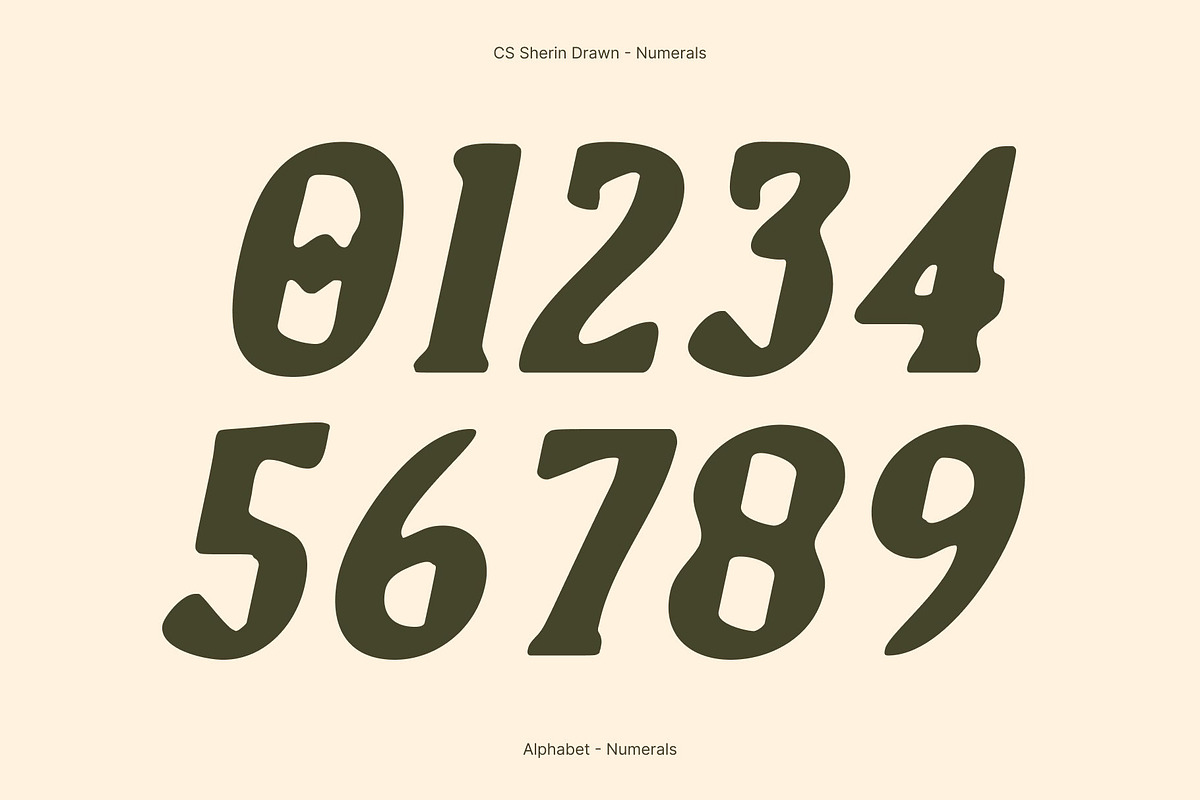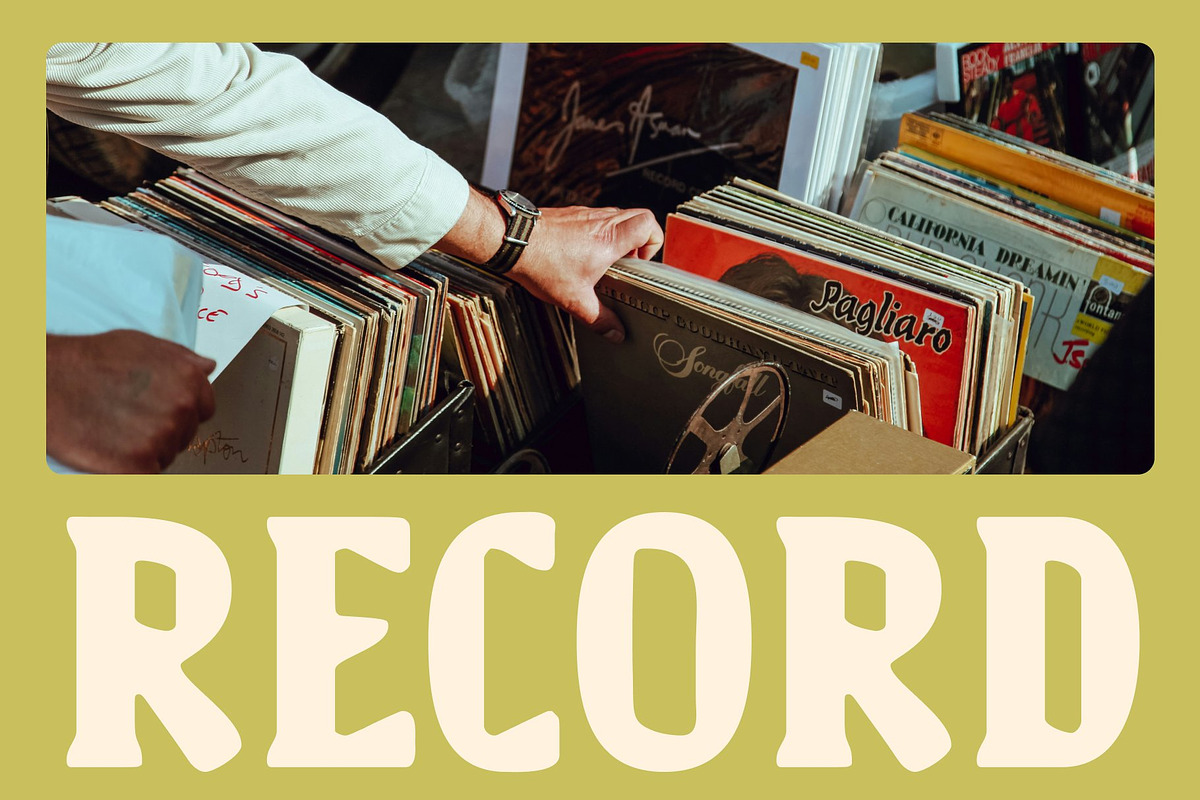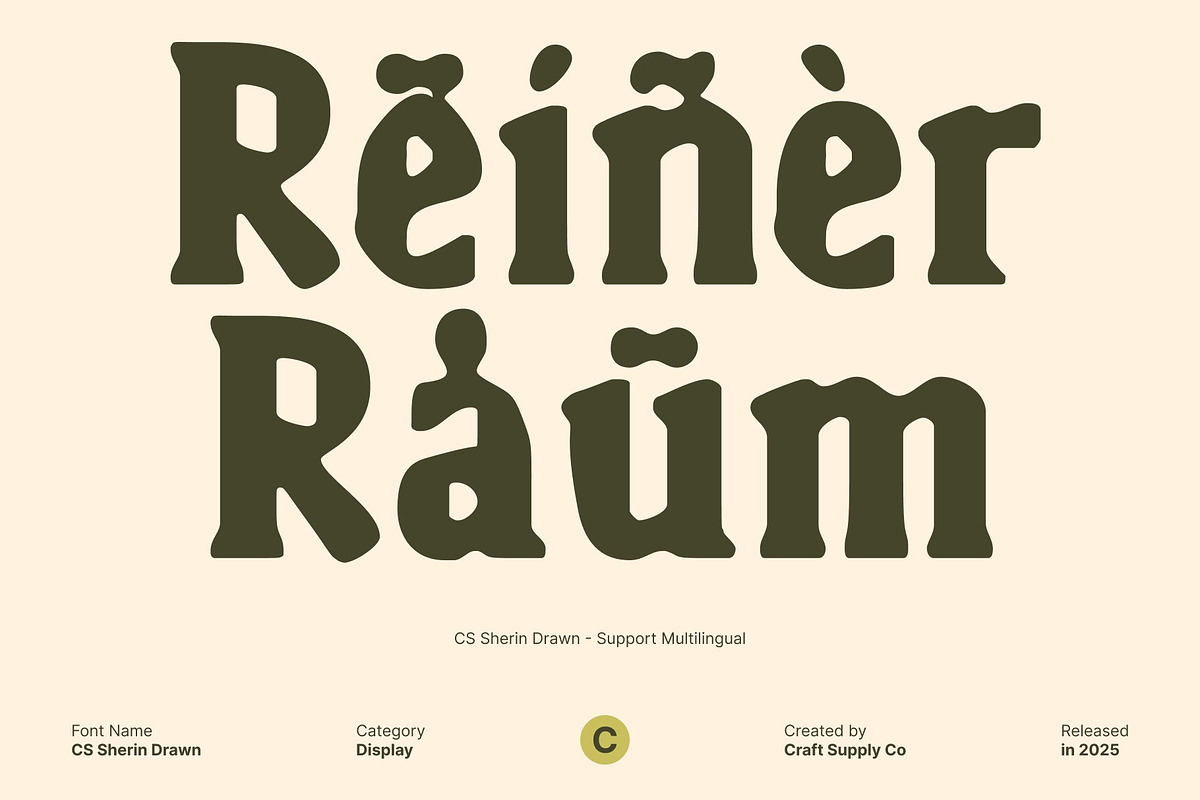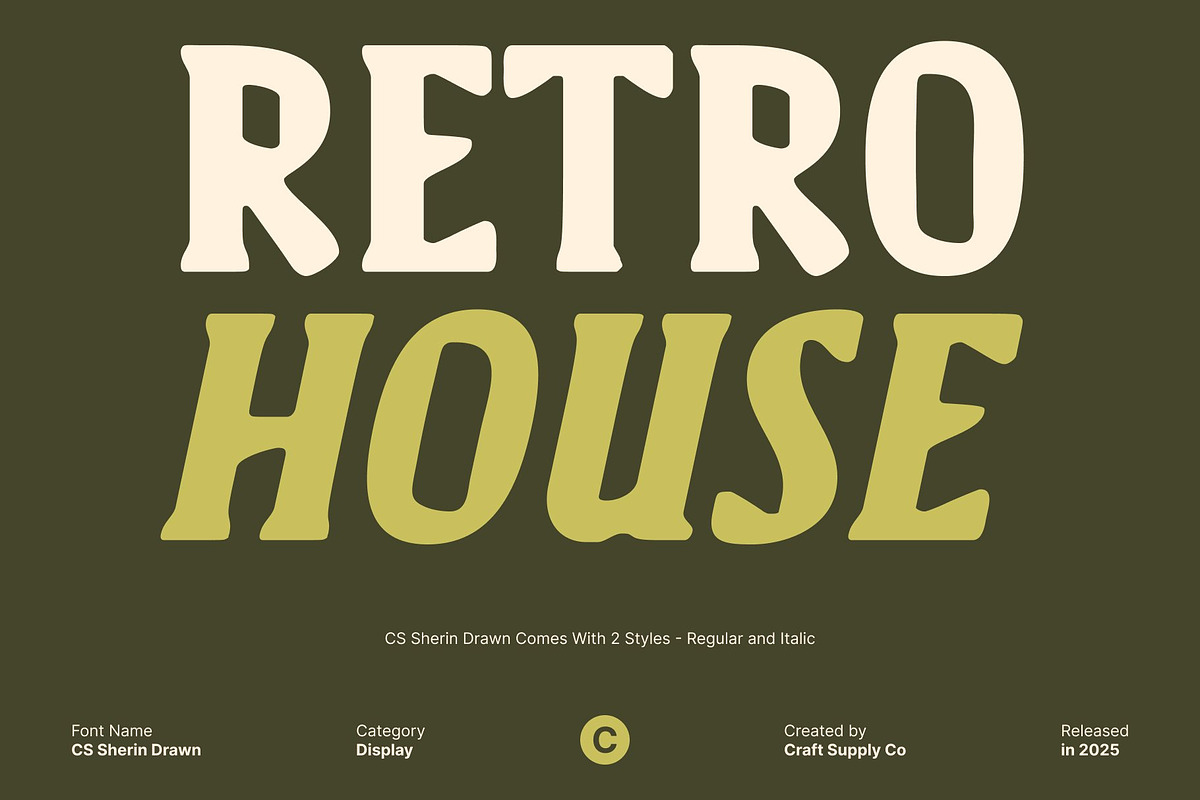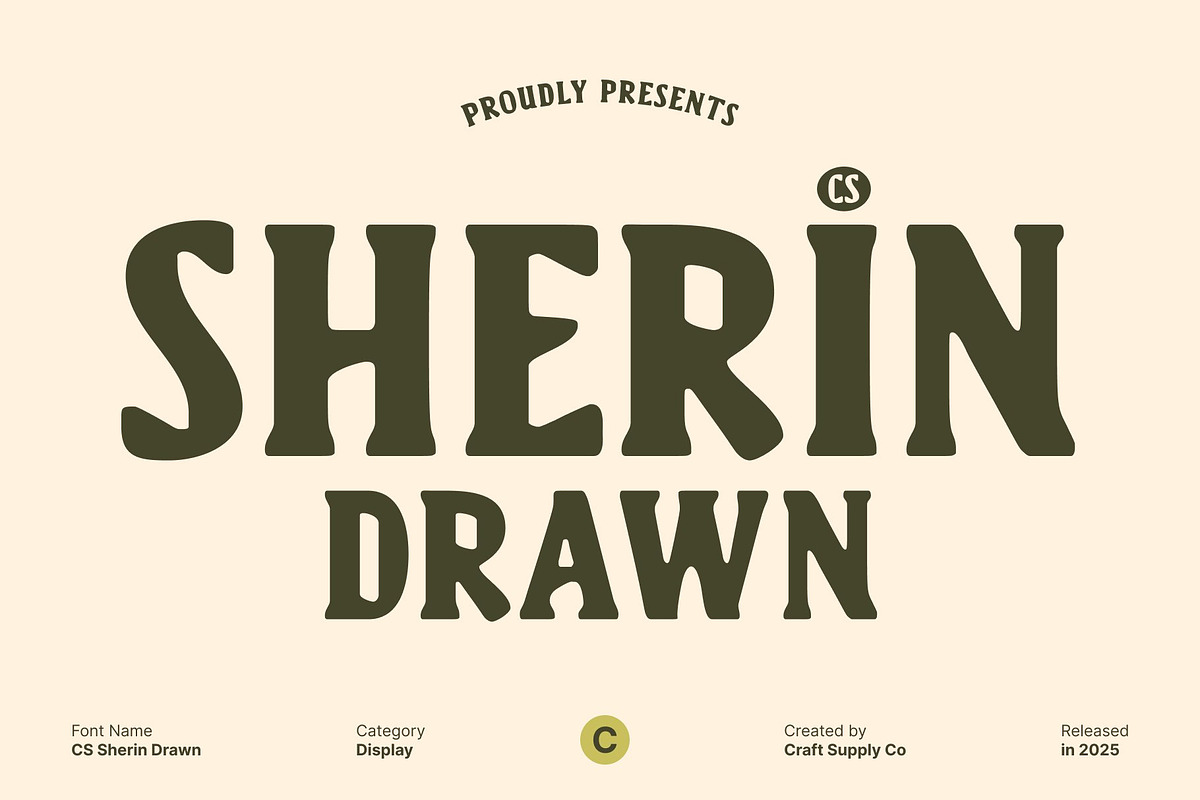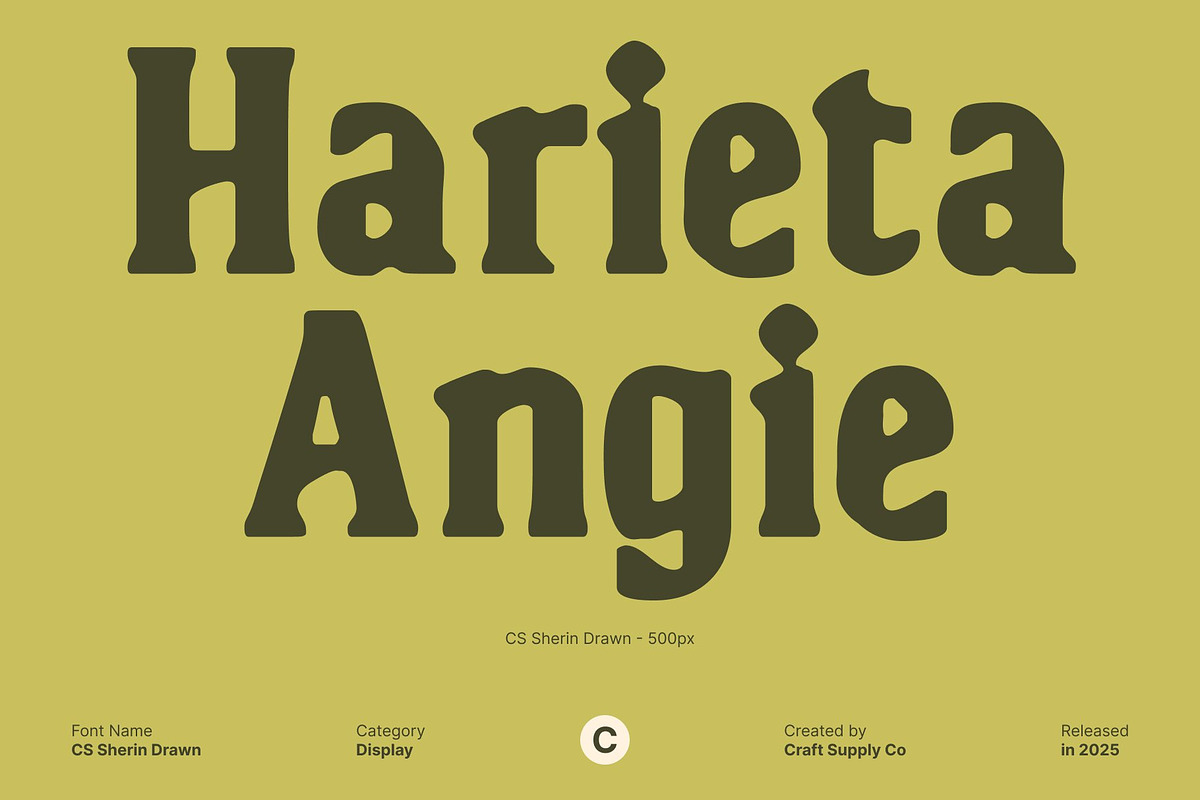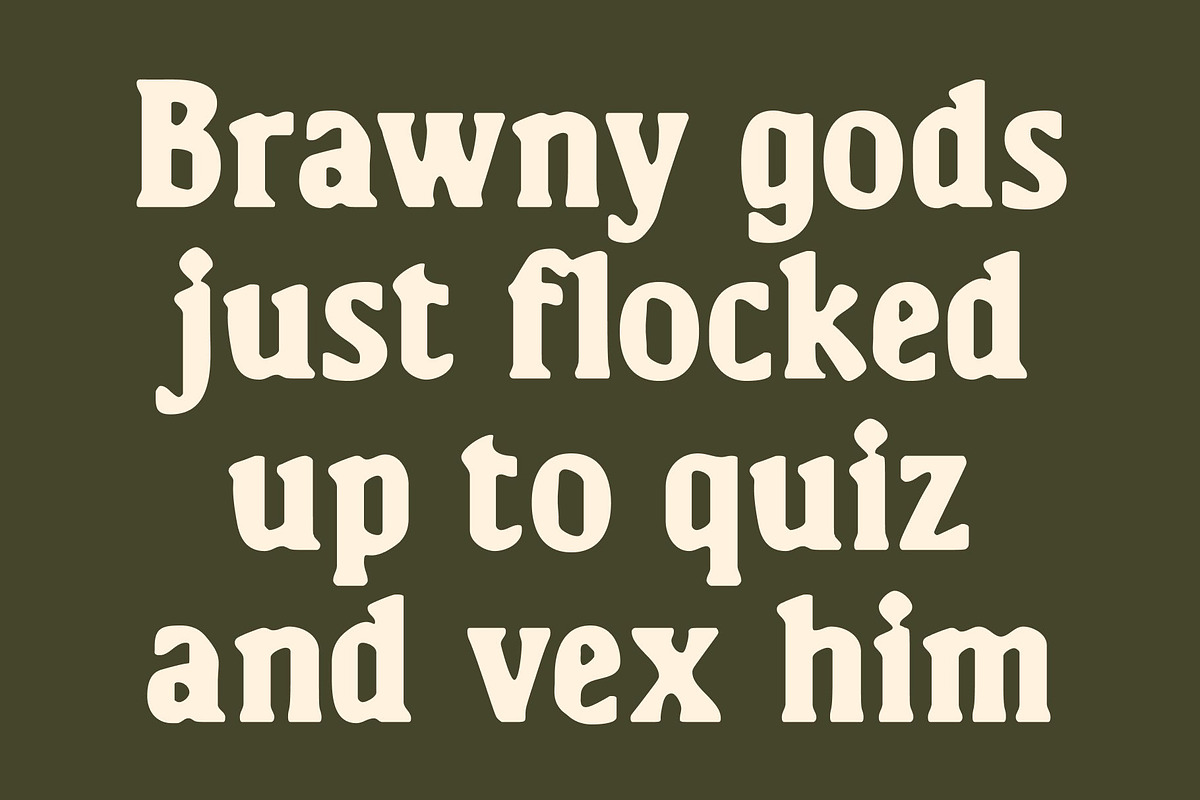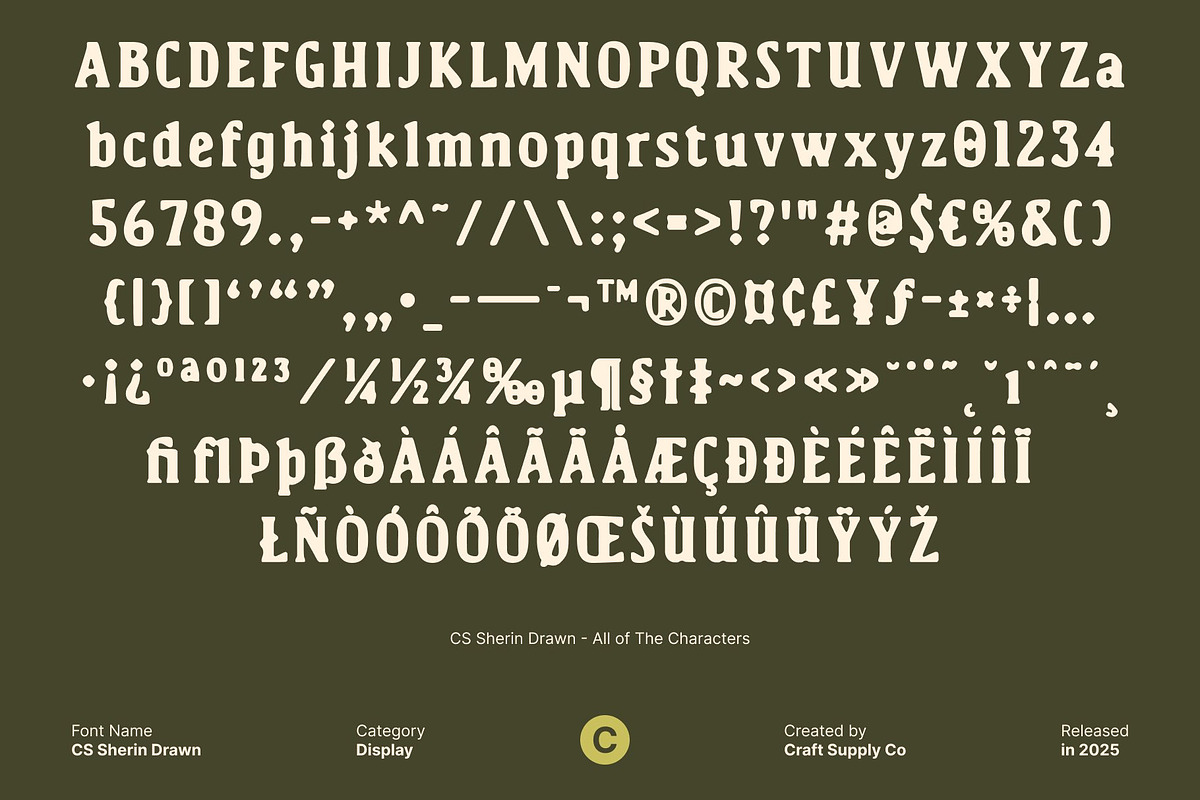
CS Sherin Drawn
CS Sherin Drawn – Modern Sans Serif Font with Expressive Precision
Clean Lines That Communicate Strength and Professionalism This is a modern serif font defined by bold lines and a clean, contemporary structure. Its strong letterforms project confidence and clarity, making it an excellent choice for professional design environments. The balanced proportions and crisp construction ensure high readability while delivering a modern, authoritative presence that feels reliable and refined.
Hand-Drawn Texture for Artistic Expression The drawn effect introduces a handcrafted texture that adds depth and individuality to the otherwise clean forms. Subtle imperfections and organic strokes soften the precision, giving the font a more expressive and human feel. This artistic layer transforms the font into something both polished and creative, allowing it to stand out without sacrificing professionalism.
Versatile for Editorial, Branding, and Digital Use This font performs beautifully across editorials, branding systems, websites, and digital interfaces. Its modern clarity ensures legibility on screens and in print, while the drawn texture adds visual interest that enhances headlines, logos, and key messages. The font adapts easily to both minimalist layouts and more expressive design concepts.
A Balance of Modern Clarity and Creative Flair By blending contemporary sans serif structure with artistic drawn detailing, offers the perfect balance between function and expression. It empowers designers to create work that feels professional yet distinctive, modern yet personal making every project visually engaging, memorable, and full of character.
- CS Sherin Drawn Regular
- CS Sherin Drawn Italic